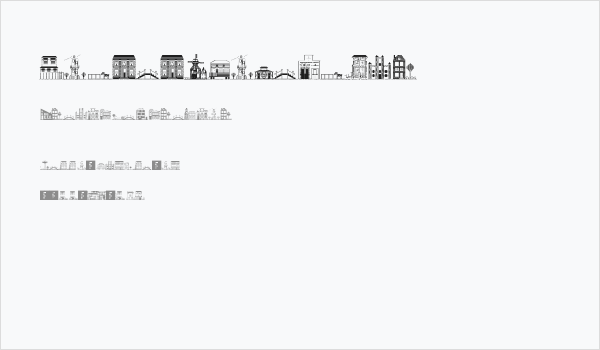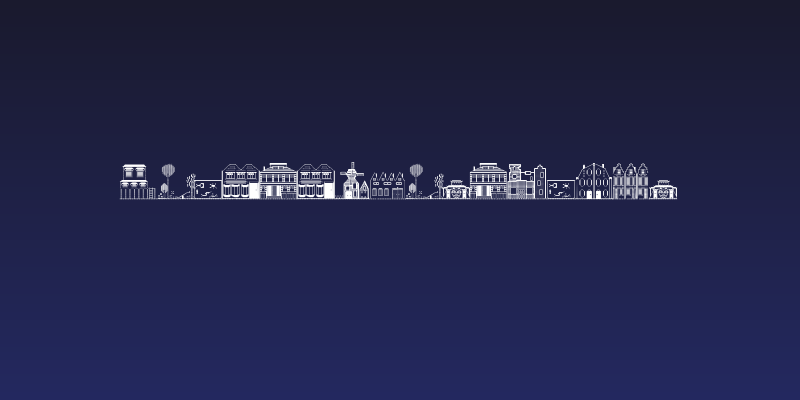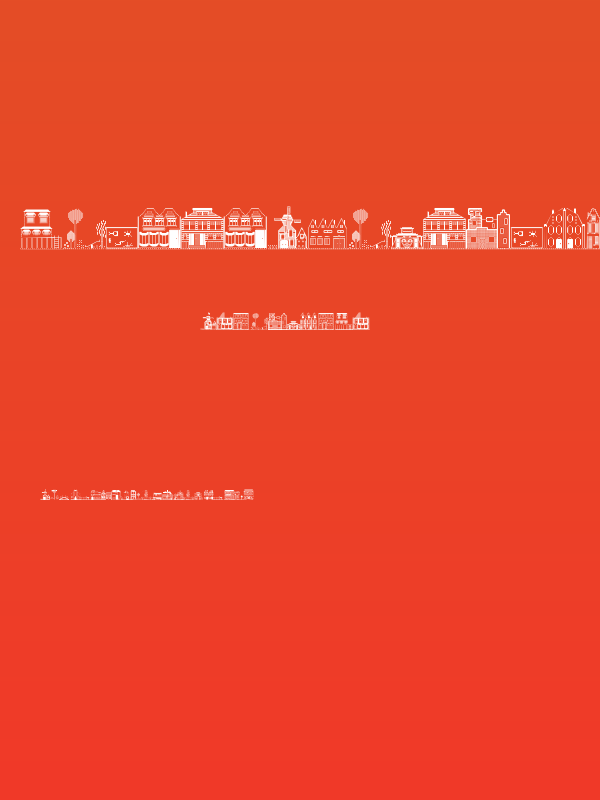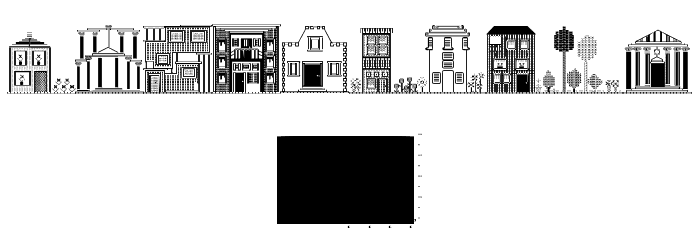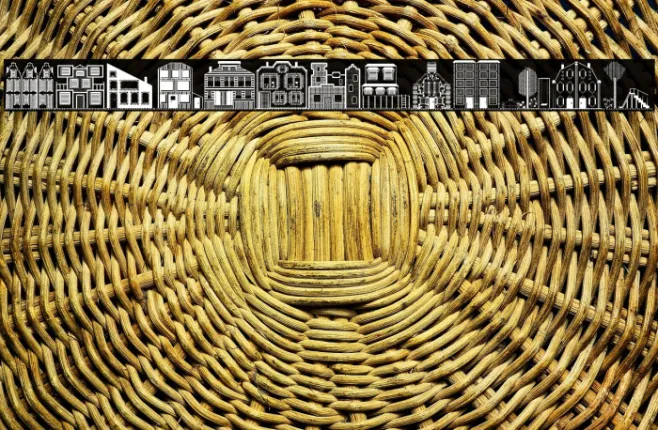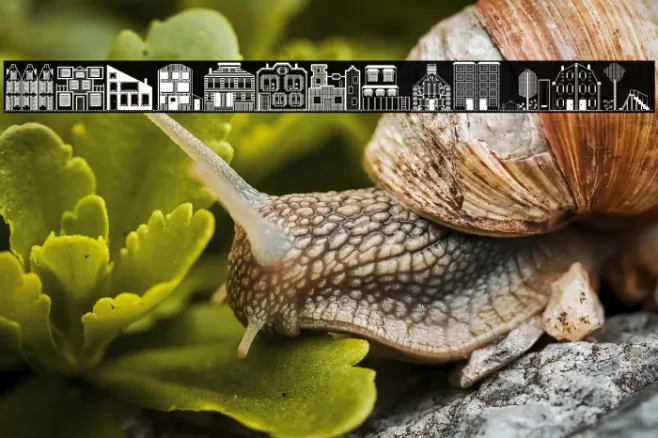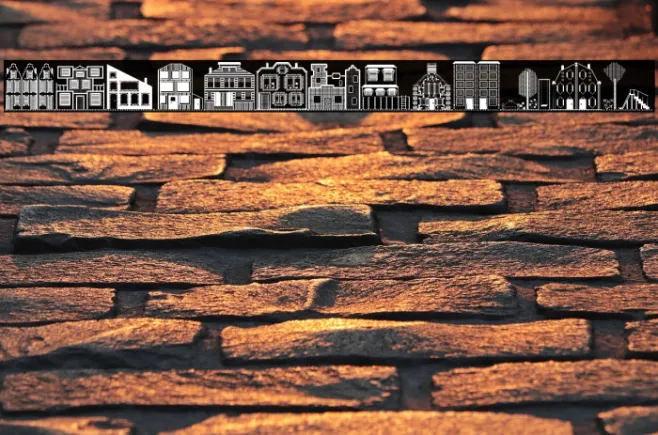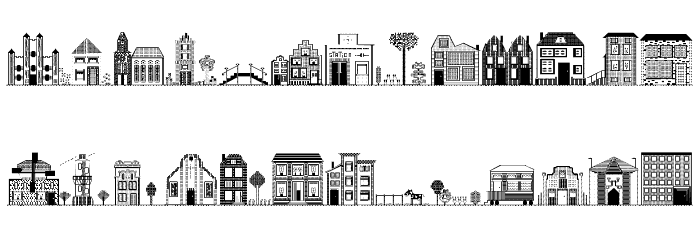
Houses Two Regular Font
Houses Two Regular Description
A decorative font featuring detailed, illustrated silhouettes of various houses and buildings, each character representing a unique architectural style in a pixel-art or line-art manner. The glyphs are highly pictorial and do not resemble traditional alphanumeric forms.
| Overall Style | Decorative, Whimsical, Architectural |